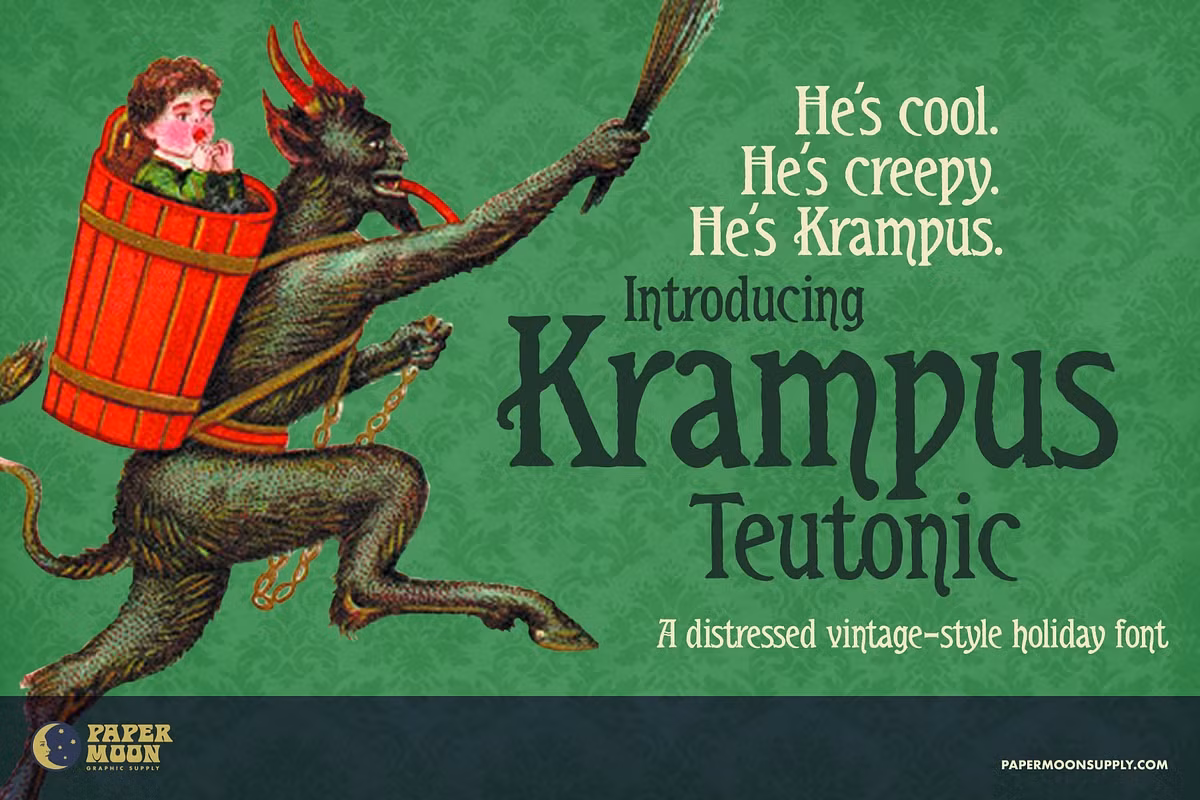
Krampus Teutonic Vintage Font Free Download is a bold and gothic-inspired typeface that channels dark folklore and old-world European aesthetics. Please note: you must purchase this font for commercial use, but you can test it through a free download. With its sharp edges, medieval character, and vintage texture, Krampus is perfect for posters, metal band logos, holiday horror themes, occult branding, and storytelling projects with a mythological twist.
This font is packed with personality—evoking the eerie charm of ancient legends and traditional Germanic design. Whether you're creating a Krampus-themed event flyer or adding an edge to your brand, Krampus Teutonic Vintage Font Free Download delivers drama and intensity. It’s fully compatible with Adobe Illustrator, Photoshop, and Canva, making it a reliable tool for creatives who love the dark and the daring. Download it now for personal use and let your designs embrace the spirit of the shadowy season.